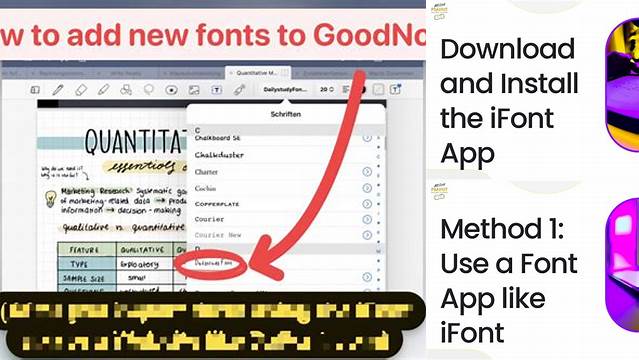
Add Custom Fonts To GoodNotes On Mac: A Beginner's Guide
Hey everyone! If you're a GoodNotes user on your Mac and you're tired of the same old fonts, you're in the right place. Today, we're diving into how to add custom fonts to GoodNotes on Mac, so you can spice up your notes and make them truly your own. Adding custom fonts isn't just about aesthetics; it's about personalizing your workspace and making your digital note-taking experience more enjoyable. So, grab your Mac, and let's get started! We'll cover everything from where to find free fonts to installing them and using them in GoodNotes. Trust me, once you start using your favorite fonts, you'll wonder how you ever lived without them!
Finding and Downloading Custom Fonts for GoodNotes on Mac
Alright, guys, the first step in this awesome journey of adding custom fonts to GoodNotes on Mac is finding the perfect fonts! Luckily, there are tons of websites out there offering free fonts. Yes, you read that right – free! Just remember to be a bit cautious when downloading fonts from the internet. Always download from reputable sources to avoid any nasty surprises like malware. Popular websites like Google Fonts, DaFont, and Font Squirrel are great places to start. They offer a wide variety of fonts, from classic serifs and sans-serifs to quirky and unique handwriting styles. When browsing, consider what kind of vibe you want for your notes. Do you want something professional, playful, or maybe a bit vintage? Once you've found a font you love, download it. Most of the time, the font will come in a zip file. You'll need to unzip it to access the font files, which are usually in .ttf (TrueType Font) or .otf (OpenType Font) format. These are the files we'll need to install the fonts on your Mac.
Choosing the Right Fonts
Choosing the right fonts is super important! Think about the purpose of your notes. If you're using GoodNotes for academic or professional purposes, you might lean toward clean, easy-to-read fonts like Arial, Helvetica, or Roboto. These fonts are classic for a reason: they're clear and legible. On the other hand, if you're using GoodNotes for journaling, creative writing, or just for fun, you have a lot more freedom! You could explore handwritten fonts, decorative fonts, or even fonts with unique symbols and characters. Don't be afraid to experiment with different styles to see what works best for you. Keep in mind that readability is key. Even the coolest-looking font isn't worth much if it's hard to read. Consider the size you'll be using the font at and whether it's still legible. It's also a good idea to limit the number of different fonts you use in a single document. Too many fonts can make your notes look cluttered and unprofessional. Stick to a few complementary fonts to maintain a consistent and visually appealing look.
Downloading Fonts Safely
As mentioned earlier, it's important to download fonts from safe and reputable sources to avoid any potential security risks. Before downloading, always check the website's reputation. Look for reviews or recommendations from other users. Avoid downloading fonts from suspicious websites or those that look poorly designed. Also, be wary of any website that asks for personal information before allowing you to download a font. When you download a font, be sure to scan the downloaded file with antivirus software before you install it. This can help detect and remove any potential threats. If you're unsure about a font or a website, it's always better to err on the side of caution and choose another option. Safety first, folks!
Installing Fonts on Your Mac
Okay, now that you've downloaded your fonts and safely unzipped them, it's time to install them on your Mac. This is actually a pretty straightforward process. To install fonts on your Mac; you'll use the Font Book app, which comes pre-installed on every Mac. This is where the magic happens to make those fonts available to all of your applications, including GoodNotes. Ready to get started?
Using Font Book
First, locate the Font Book application on your Mac. You can find it in your Applications folder or by using Spotlight search (just press Command + Space and type "Font Book"). Open Font Book. Inside Font Book, you'll see a list of all the fonts currently installed on your Mac. To install a new font, simply drag the .ttf or .otf font file you downloaded into the Font Book window. Alternatively, you can click the "+" button at the top of the Font Book window and navigate to your downloaded font file to select and install it. If the font installs successfully, it will appear in the list of fonts. If you encounter any issues during installation, Font Book will usually provide an error message that can help you troubleshoot the problem. Sometimes, the font file might be corrupted, or there might be a conflict with an existing font. In such cases, you might need to redownload the font or remove the conflicting font before trying again. After installing a font, it's a good idea to restart any applications that were open at the time of installation. This ensures that the new font is recognized and available for use. Once the font is installed and your Mac is aware of the new font, the next step is to get those fonts into GoodNotes.
Troubleshooting Font Installation
Sometimes, you might run into problems when installing fonts on your Mac. Don't worry, it's usually a quick fix. One common issue is font conflicts. If you're trying to install a font that has the same name as an existing font, Font Book might not install it, or it might replace the old font. To resolve this, you can rename the new font file before installing it or remove the existing font first. Another issue could be corrupted font files. If a font file is damaged, it won't install properly. In this case, you'll need to redownload the font from a reliable source. If you're still having trouble, try restarting your Mac after installing the fonts. This can help refresh the system and ensure that the fonts are recognized by all applications. Make sure you're installing the font in the correct location. By default, fonts are installed for all users. If you install a font only for your user account, other users on your Mac won't have access to it. If you're still stuck, check out online forums and communities for additional troubleshooting tips. There are many online resources to help you install custom fonts.
Using Custom Fonts in GoodNotes
Alright, now for the exciting part: actually using your new custom fonts in GoodNotes! Once you've successfully installed the fonts on your Mac, they should automatically appear in GoodNotes. Let's figure out how to use your custom fonts in GoodNotes.
Accessing and Applying Fonts in GoodNotes
Open GoodNotes on your Mac. Create a new notebook or open an existing one. Tap on the text tool (the "T" icon) in the toolbar. Click on the text box to start typing or select existing text you want to format. In the text formatting panel, you should see a font selection dropdown menu. Click on this menu. Scroll through the list of available fonts until you find your newly installed custom font. Select your custom font, and the text you selected will instantly change to that font. You can also adjust the font size, color, and other formatting options in the text formatting panel. Experiment with different fonts to find the ones you like best for different purposes. Some fonts might work better for headings, while others are great for body text. Make sure that you can see the font when you select it. Also, make sure to practice using it to be sure that you have found the one that works for you!
Troubleshooting Font Display in GoodNotes
Sometimes, you might find that your custom fonts aren't displaying correctly in GoodNotes. Here's what to do: First, make sure that you've installed the font correctly in Font Book, as described earlier. Double-check that the font is listed in the Font Book app. If the font doesn't appear in GoodNotes, try closing and reopening GoodNotes. Sometimes, the app needs to be restarted to recognize the new fonts. Also, make sure you're using the latest version of GoodNotes. Updates often include bug fixes and compatibility improvements. If the font is still not showing up, try restarting your Mac. This can help refresh the system and ensure that all applications recognize the new font. Also, make sure to select the right font. Double-check that the font is actually chosen. Finally, check the font file itself. Sometimes, a font file might be corrupted, which could cause display problems. Try reinstalling the font or downloading it from another source. If the issues persist, reach out to GoodNotes support for further assistance. They can provide additional troubleshooting steps or identify any potential compatibility issues.
Tips and Tricks for Using Custom Fonts Effectively
Using custom fonts is a fun way to personalize your GoodNotes experience, but here are some tips to make the most of them:
Font Pairing and Hierarchy
When selecting fonts for your notes, consider font pairing. Choose fonts that complement each other. A good rule of thumb is to combine a serif font (like Times New Roman) with a sans-serif font (like Arial). This creates visual contrast and makes your notes more appealing. Establish a clear font hierarchy to organize your content. Use different fonts and sizes for headings, subheadings, and body text to guide the reader's eye. This helps to create a logical structure in your notes and makes them easier to read. Experiment with different font combinations until you find what looks best for your notes. Try different combinations until you are satisfied. You can find examples of font pairings online if you need inspiration. The best way to determine which is right is to try out a few different font combinations and select which one you enjoy the most.
Font Size and Readability
Always prioritize readability when choosing and using fonts. Choose font sizes that are easy to read, even when zoomed out. Avoid using fonts that are too small or too elaborate, as they can be difficult to read. Test your notes on different screens and in different lighting conditions to make sure the fonts are still clear. Remember that the readability of the text depends on the size, style, and contrast of the font. Consider adjusting the line spacing and margins to improve readability. In GoodNotes, you can adjust the text size in the formatting panel. If your fonts are too small or too large, you can use the text sizing tools to make it just right.
Organization and Consistency
Organize your fonts by category or purpose to keep things tidy. Create a list of your favorite fonts for headings, body text, and other specific uses. This way, you'll always know which fonts to use for each type of note or section. Establish a consistent style guide for your notes. Once you've found a set of fonts and formatting options that you like, stick with them. This will help your notes look professional and organized. Make sure your notes are organized to find them later. Consistent formatting will help you do just that!
Congrats, you've learned how to add custom fonts to GoodNotes on Mac! From finding fonts, to installing them, and finally, using them in GoodNotes, we've covered everything you need to know. Now go out there and unleash your creativity! Experiment with different fonts and styles to create notes that are as unique as you are. Have fun, and happy note-taking, everyone! Remember, the best way to learn is by doing, so get out there and start experimenting with your new fonts!